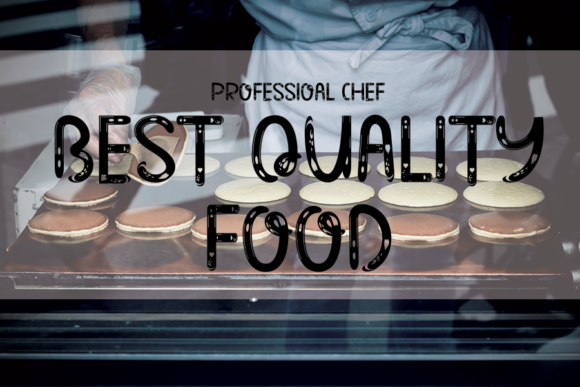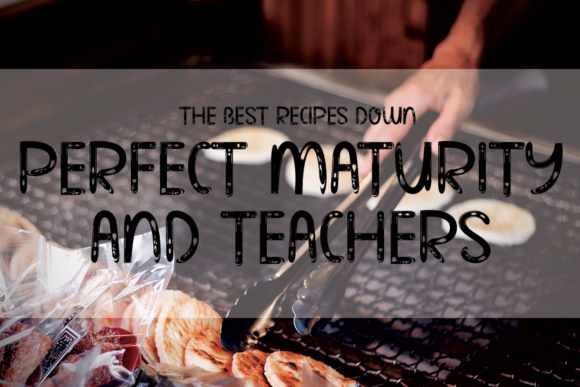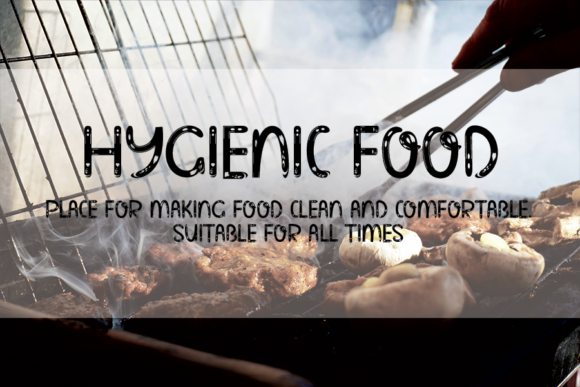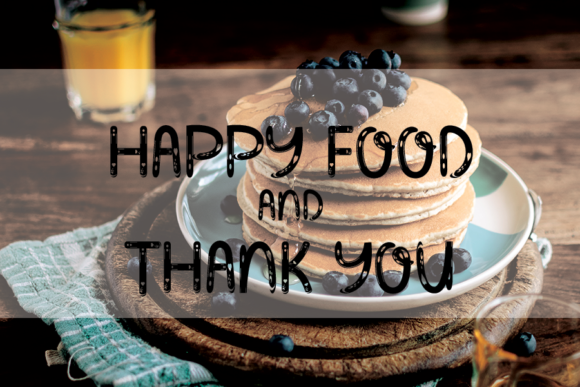
Introduction to Dorra Yokkie Font Font
Fonts play a crucial role in design, and the Dorra Yokkie Font font is a typeface that brings both character and versatility to any project. Whether you’re working on a branding project, a website, or a print design, the Dorra Yokkie Font font offers a unique style that can elevate your work.
Dorra Yokkie is a quirky yet bold display font.
It will complement any design need perfectly with its right mix of the smooth and sharp .
Key Features of Dorra Yokkie Font Font
Why Choose Dorra Yokkie Font Font?
The Dorra Yokkie Font font is more than just a typeface – it’s a design tool that helps you communicate your message with style and clarity. Its unique character set and versatile design make it suitable for a wide range of applications, from elegant invitations to bold headlines.
With its carefully crafted letterforms and balanced proportions, the Dorra Yokkie Font font ensures readability and visual appeal across all mediums.
What makes Dorra Yokkie Font font special?
The Dorra Yokkie Font font stands out with its unique design, exceptional readability, and versatility across various design applications.